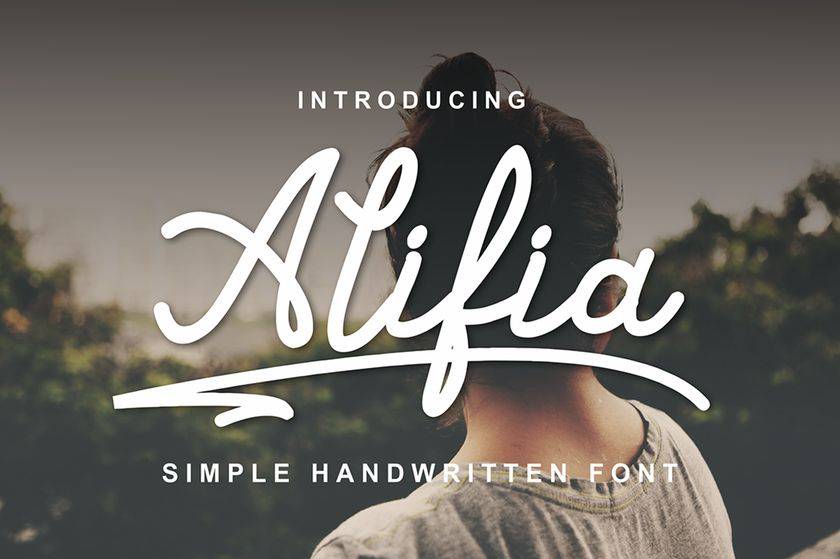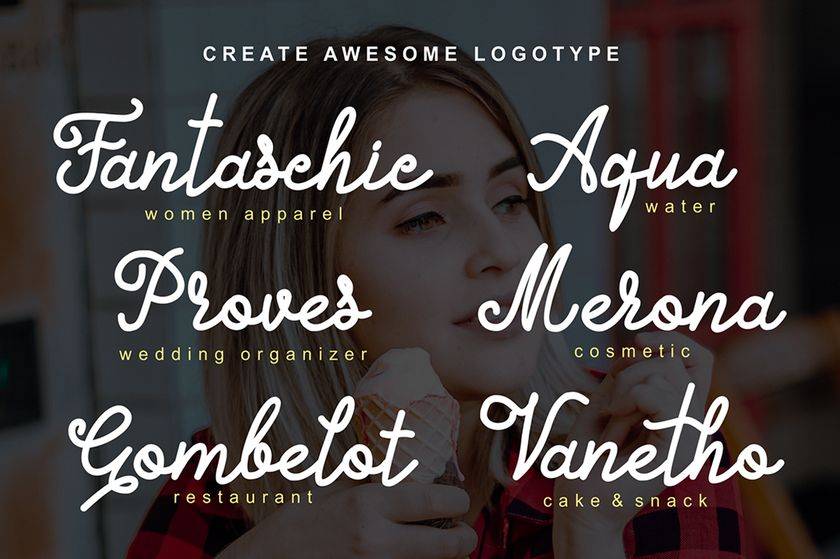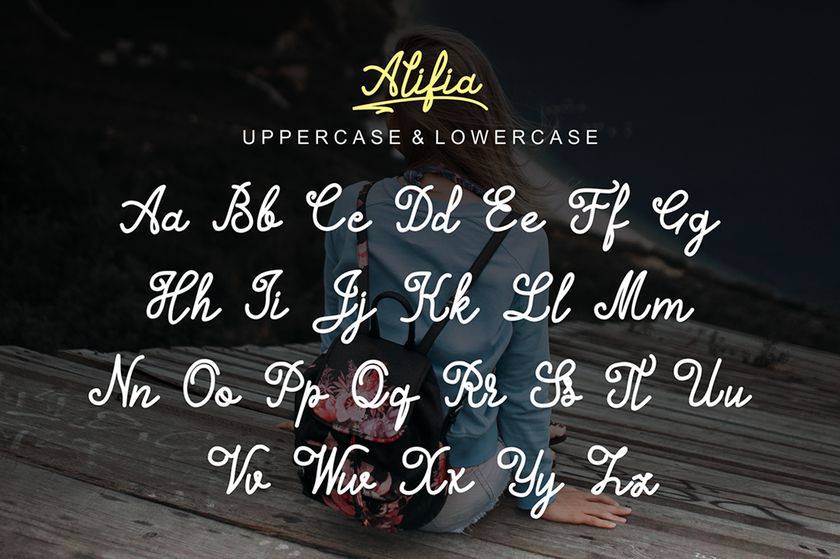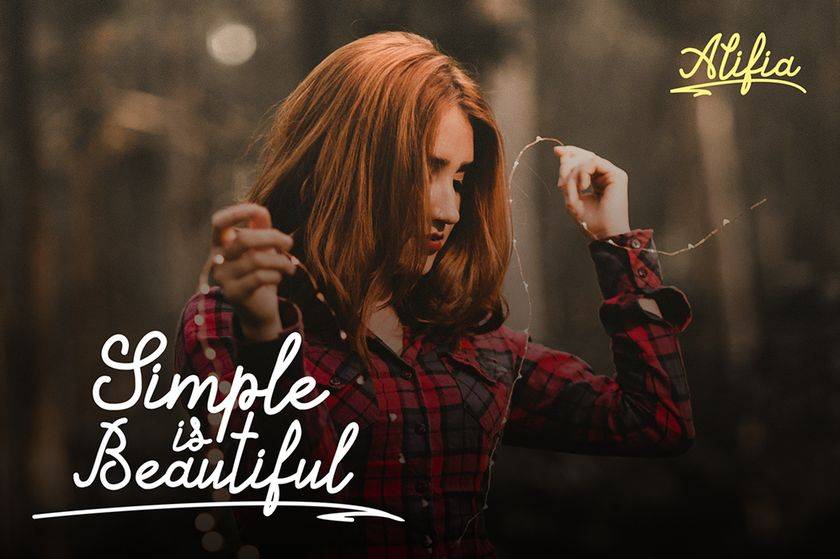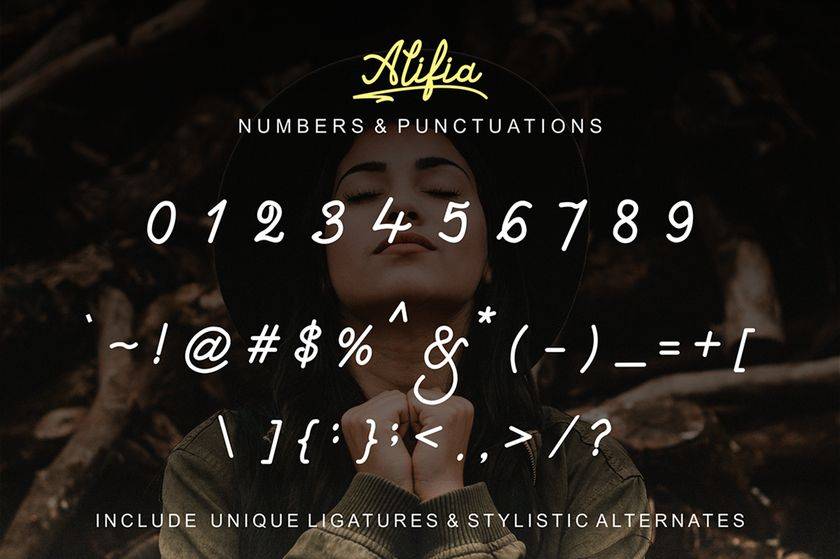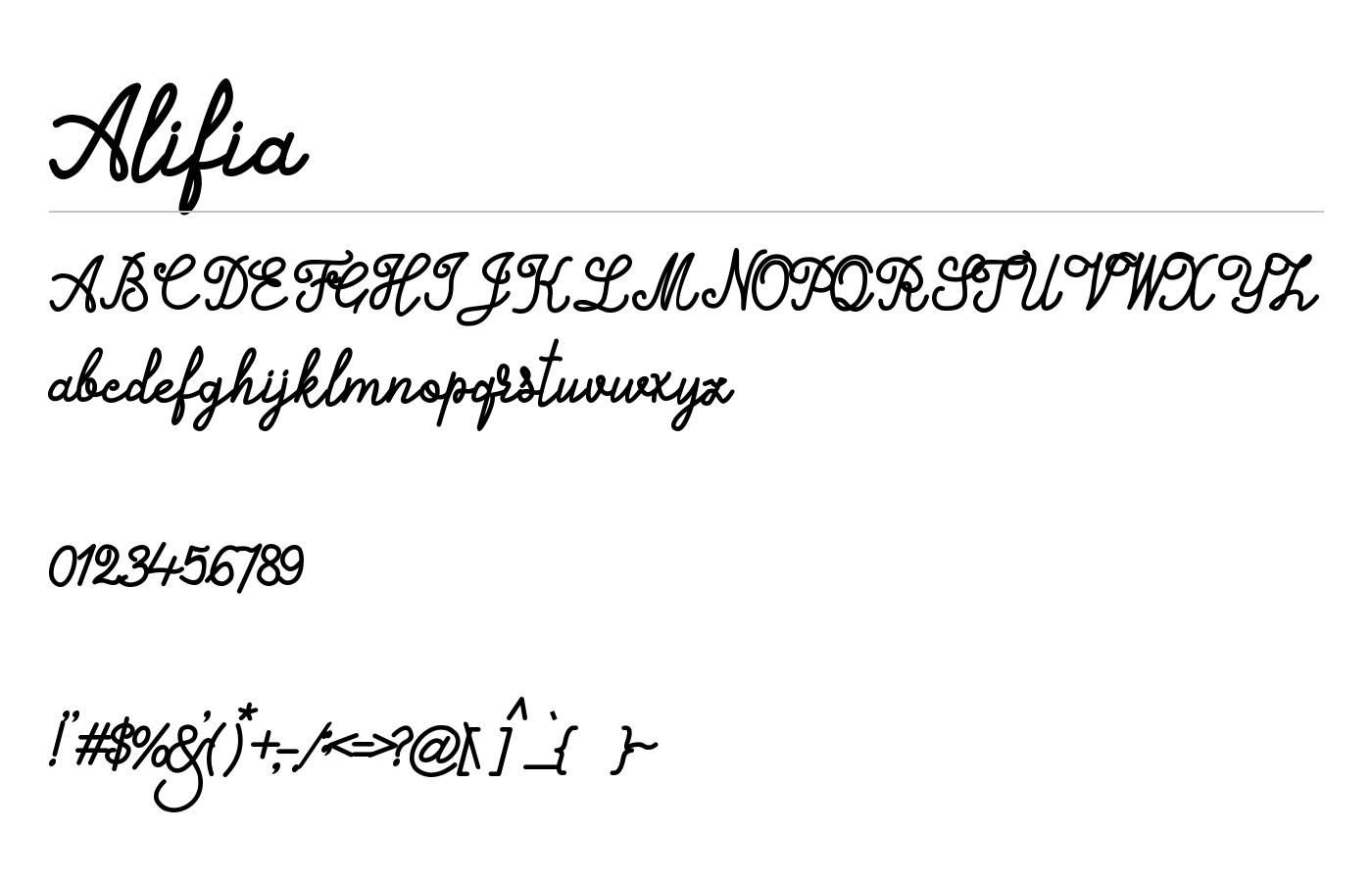
Alifia is a graceful script font with a smooth, flowing style and moderate stroke weight that gives it an elegant yet approachable feel. Its connected letterforms and balanced curves make it ideal for adding a personal, handwritten touch to branding, invitations, and stylish editorial projects. This font works beautifully in headlines and decorative uses where a chic, feminine aesthetic is desired.
Alifia Font
About Alifia Font